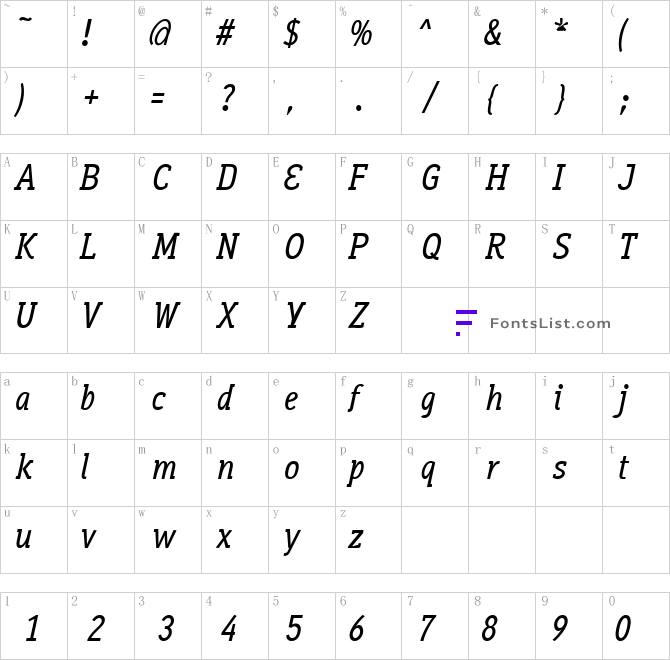
- Font Name:Aaux OfficeMedium Italic
- Subfamily:Macromedia Fontographer 4.1.5 Aaux OfficeMedium Italic
- Full Name:Aaux OfficeMedium Italic
Aaux-OfficeMedium-Italic.ttf is a very beautiful artistic font, Aaux-OfficeMedium-Italic.ttf is widely used in the design and printing of various books and pictures,Aaux-OfficeMedium-Italic.ttf has a strong visual impact,Aaux-OfficeMedium-Italic.ttf is a commonly used font in newspapers, magazines and books, and is used in posters, e-commerce Poster design, store design, logo design, font design and other fields.Aaux-OfficeMedium-Italic.